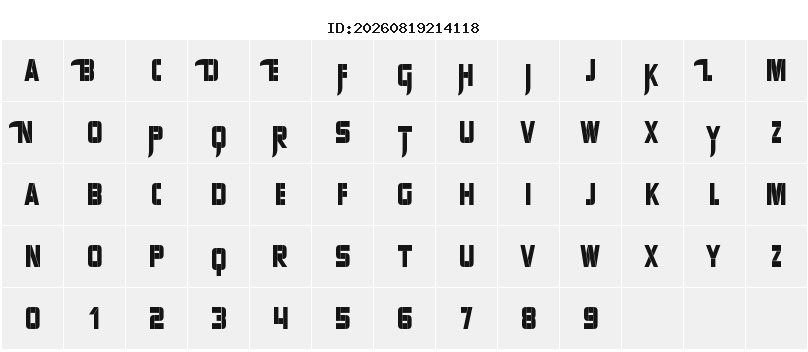
Sharp Avienne Condensed Preview
• Font Name: Sharp Avienne Condensed
• Full Font Name: Sharp Avienne Condensed
• Version: Version 1.20 September 9, 2014
• Designer: Neale Davidson
About Sharp Avienne Condensed.otf
Sharp Avienne Condensed.otf is a modern, elegant sans-serif font designed for ultimate readability and visual harmony. Perfect for branding, headlines, web design, and print materials.